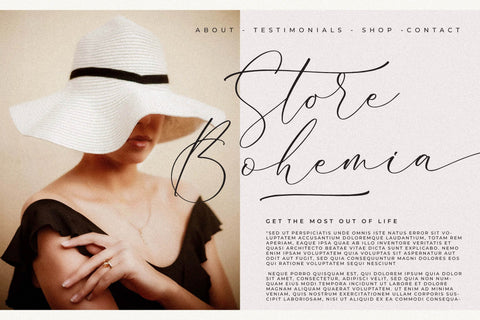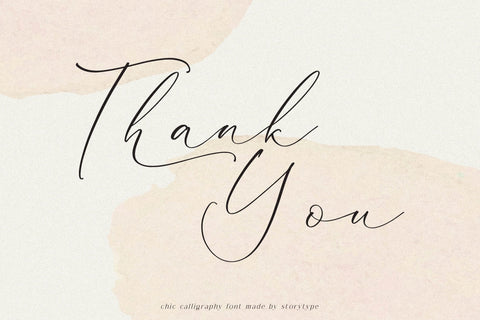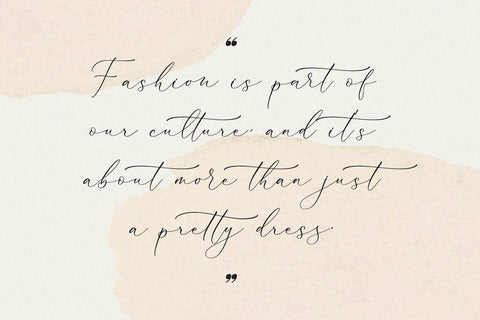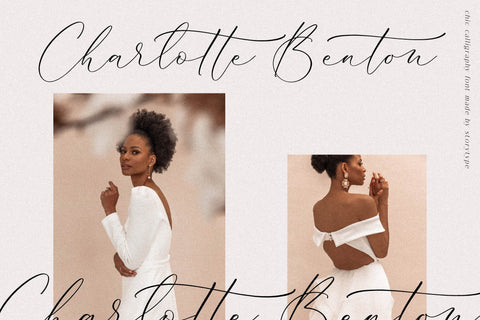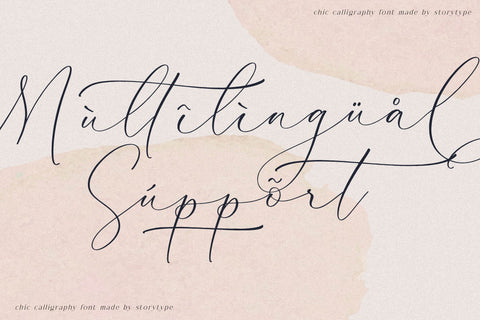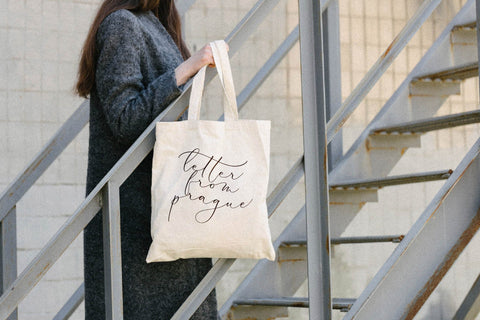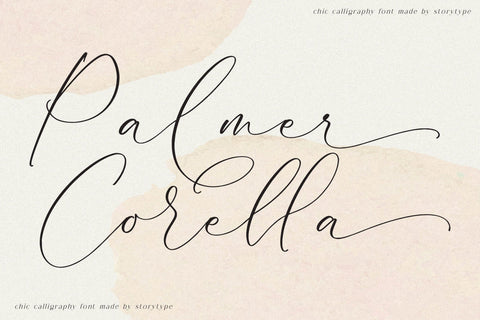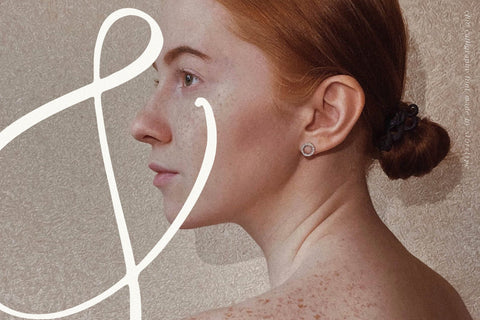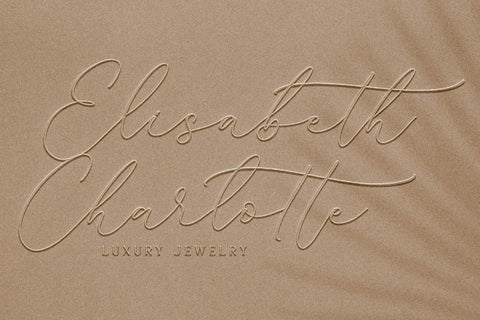
Palmer Corella - Chic Calligraphy Font
Proudly present Palmer Corella - Chic Calligraphy Font , created by Storytype,
A luxury script that has own unique style & modern look.